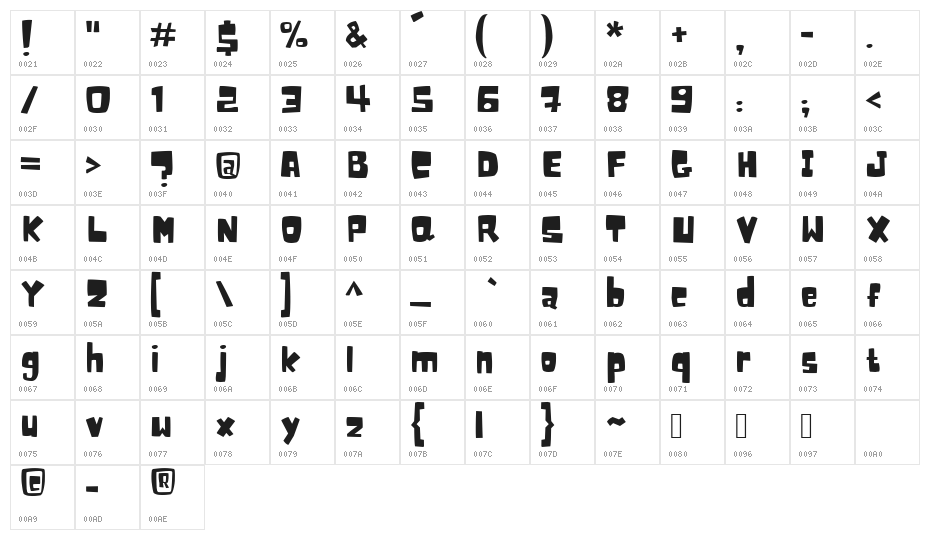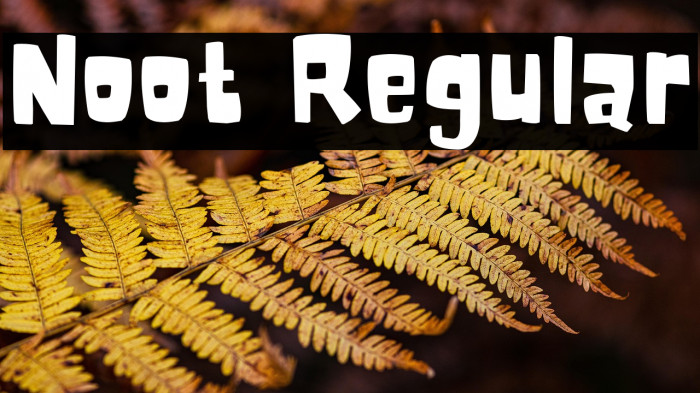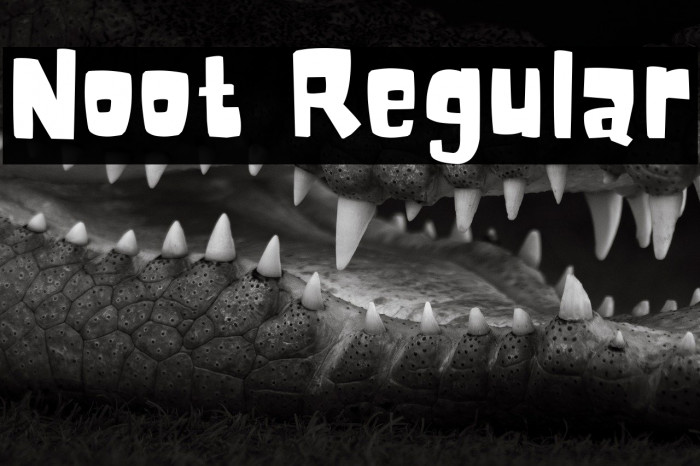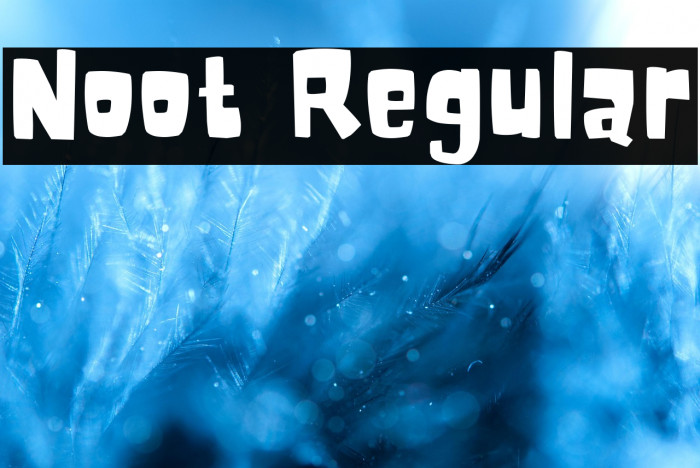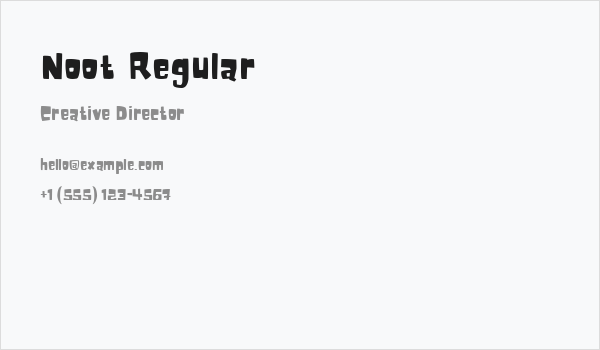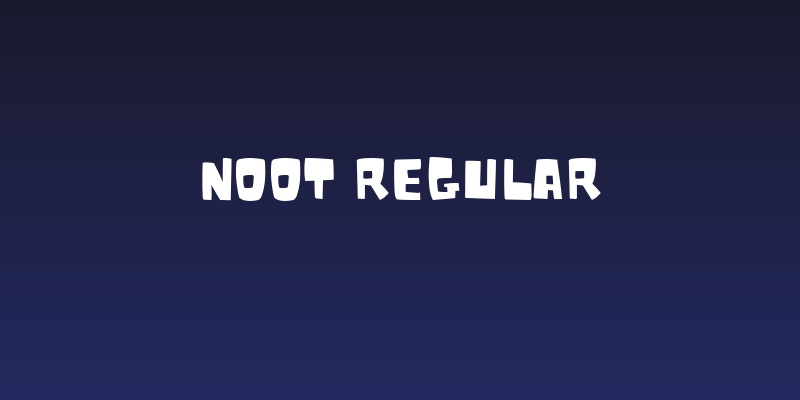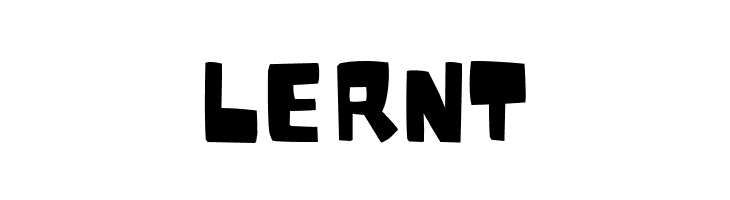
Noot Regular Font
Noot Regular Description
This font features a bold and playful design with a hand-drawn aesthetic. The characters are slightly irregular, giving it a whimsical and informal appearance. The uppercase and lowercase letters maintain a consistent style, with rounded edges and a chunky feel. Numbers and special characters follow the same playful theme, making it suitable for creative and fun projects. The overall look is casual and approachable, ideal for designs that require a touch of personality and uniqueness.
| Overall Style | Playful, Casual, Hand-drawn |
| Proposed Projects | Ideal for children's books, playful branding, casual invitations, and creative posters. |